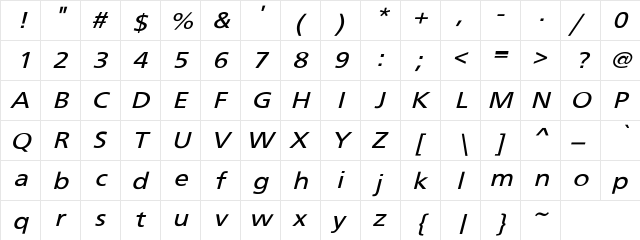
FrutigerExtOb 2 Regular Font Preview
FrutigerExtOb 2 Regular
Design Context for FrutigerExtOb 2 Typeface
FrutigerExtOb 2 is a composed and adaptable typeface that performs quietly and consistently across a wide range of design contexts.